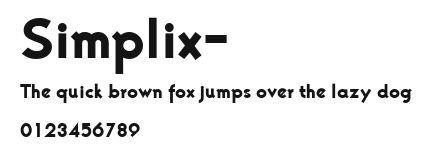
Simplix- Preview
• Font Name: Simplix-
• Full Font Name: Simplix Bold
About Simplix-.ttf
Simplix-.ttf is a modern, elegant sans-serif font designed for ultimate readability and visual harmony. Perfect for branding, headlines, web design, and print materials.